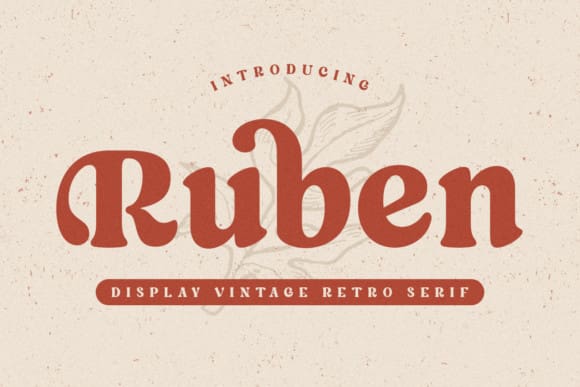
Ruben Retro Font
Ruben Retro Font is a bold, vintage-style serif display font that commands attention. Its strong, chunky serifs and slightly condensed letters capture the essence of classic advertising and signage. Ideal for impactful headlines, branding, and poster designs that demand a touch of timeless robustness and distinction.